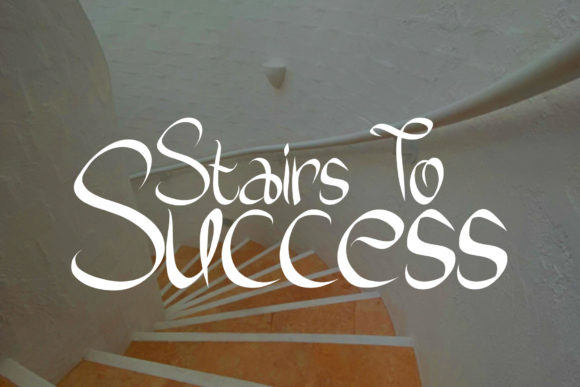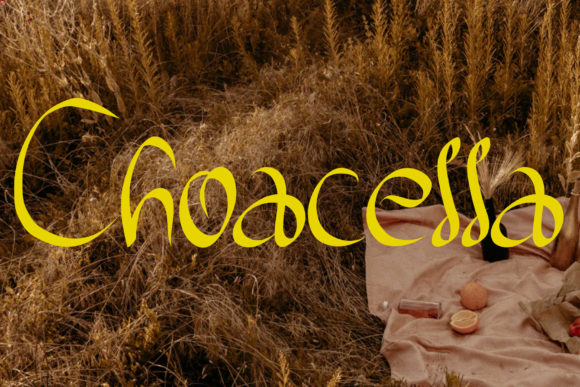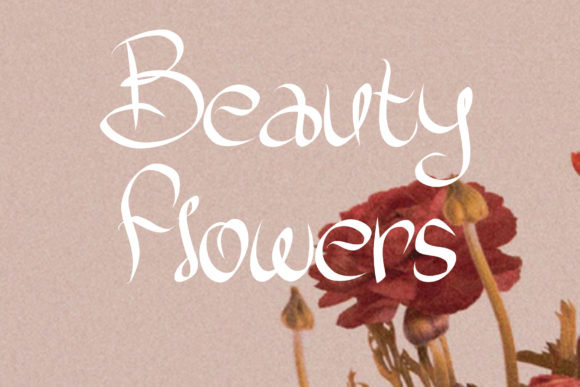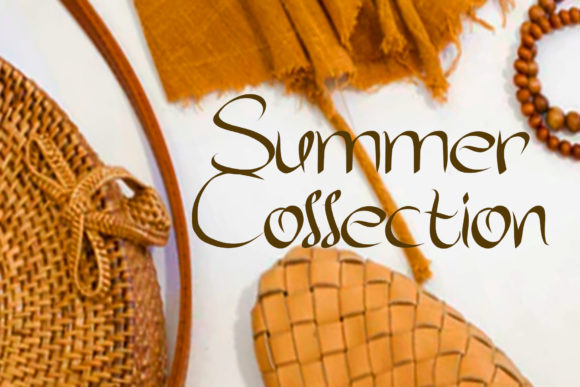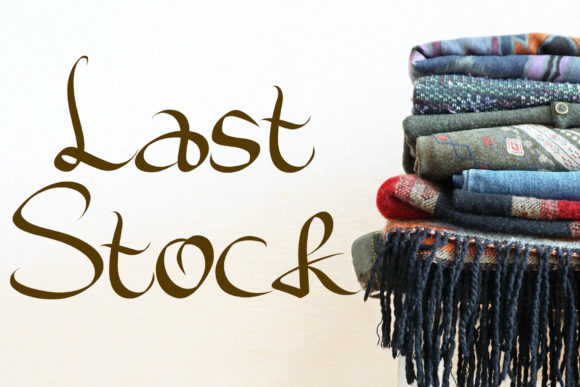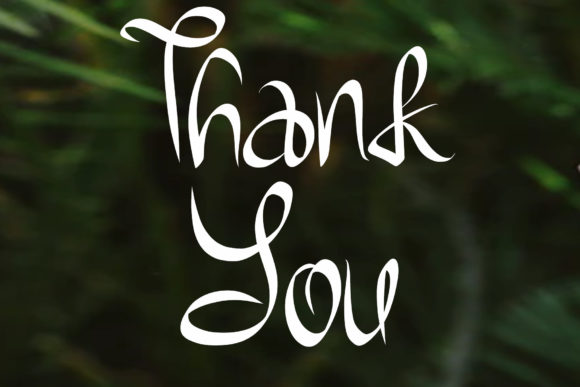
Introducing Boho Heart Font: Elevate Your Designs with Elegance and Sophistication
In the world of typography, a font can make or break the aesthetic of a design project. For those seeking a touch of elegance and sophistication, the Boho Heart Font is an exquisite choice. This chic, delicate script font is designed to add a dash of refinement to any project, making it a perfect match for designers and crafters looking to elevate their work.
The Essence of Boho Heart Font
Boho Heart Font is characterized by its stylish alternates and ligatures, which set it apart from more conventional fonts. Its unique charm lies in its ability to convey a sense of luxury and poise, making it suitable for a wide range of applications, from wedding invitations and branding materials to packaging and digital content.
Key Features of Boho Heart Font
- Delicate and Chic: Boho Heart boasts a delicate, refined appearance that adds a touch of sophistication to any design.
- Stylish Alternates and Ligatures: The font comes equipped with stylish alternates and ligatures, allowing for a high degree of customization and creativity.
- Elegant and Sophisticated: Perfect for projects that require a sense of luxury, elegance, and poise.
- Versatile: Suitable for a wide range of applications, including wedding invitations, branding, packaging, and digital content.
Whether you’re a professional designer or a crafter looking to add a personal touch to your projects, Boho Heart Font is an excellent choice. Its versatility and elegance make it suitable for various creative endeavors, such as:
- Wedding and Event Planning: Create stunning wedding invitations, save-the-date cards, and event branding materials that exude elegance and sophistication.
- Branding and Packaging: Elevate your brand’s visual identity with Boho Heart Font, perfect for logos, business cards, and product packaging.
- Digital Content: Add a touch of refinement to your digital content, including social media graphics, blog posts, and website headers.
- Crafting and DIY Projects: Use Boho Heart Font to add a personal touch to your crafting and DIY projects, such as handmade cards, scrapbooking, and iron-on designs.
Tips for Using Boho Heart Font
To get the most out of Boho Heart Font, consider the following tips:
- Pair with Complementary Fonts: Combine Boho Heart Font with complementary fonts to create a visually appealing contrast.
- Experiment with Alternates and Ligatures: Take advantage of the font’s stylish alternates and ligatures to add a unique touch to your designs.
- Adjust Font Sizes and Colors: Experiment with different font sizes and colors to achieve the desired level of elegance and sophistication.
Boho Heart Font is a beautiful, elegant script font that can elevate any design project. With its stylish alternates and ligatures, this font is perfect for designers and crafters seeking to add a touch of sophistication and luxury to their work. Whether you’re working on a wedding invitation, branding materials, or a digital content project, Boho Heart Font is an excellent choice.
Discover the elegance and sophistication of Boho Heart Font and take your designs to the next level.